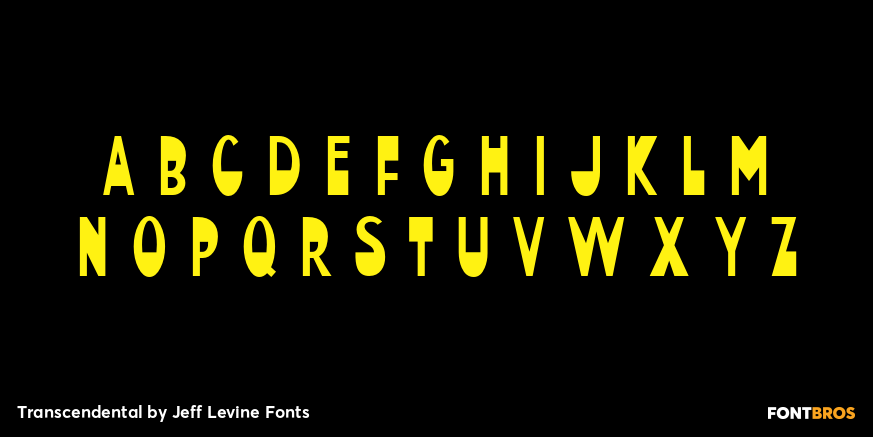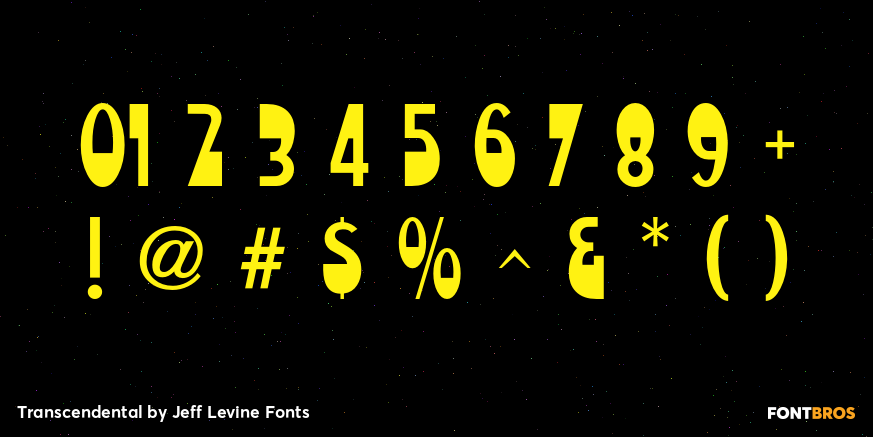
Transcendental
At first glance, Transcendental JNL looks like a 1960s or 1970s-era 'Hippie' type face, hence its 'love generation' name.
However, the actual inspiration comes from a piece of sheet music from the early 1900s with Art Nouveau influences.
It is often proven that what goes around certainly does come around in art, fashion and lettering.
Transcendental by Jeff Levine Fonts